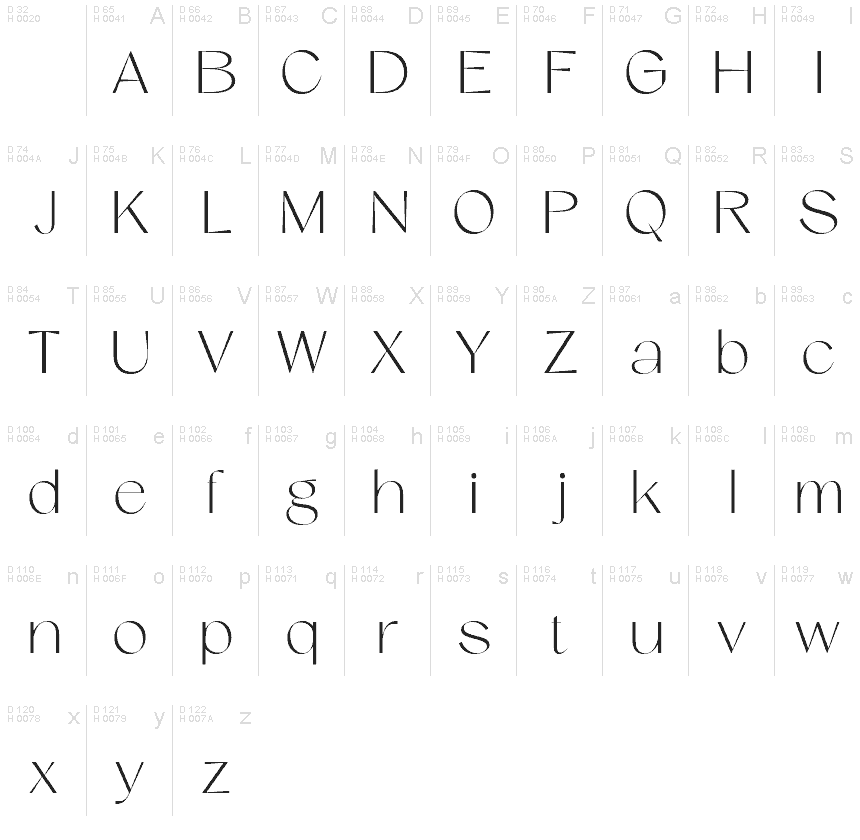
CS Gerald Regular Demo
CS Gerald font by Craft Supply Co. is an elegant sans serif font that embodies modern, minimalist, and sophisticated elements. This light typeface is clean with a touch of unique style as some letters present intricate curves and strokes for a smooth artistic twist.
Professional presentations are on a whole other level using this free font but so are UX and UI designs for websites or applications. Use CS Gerald to design book covers, branding presentations, magazine pieces, online adverts, or printed promotional items such as business cards, brochures, flyers and others.